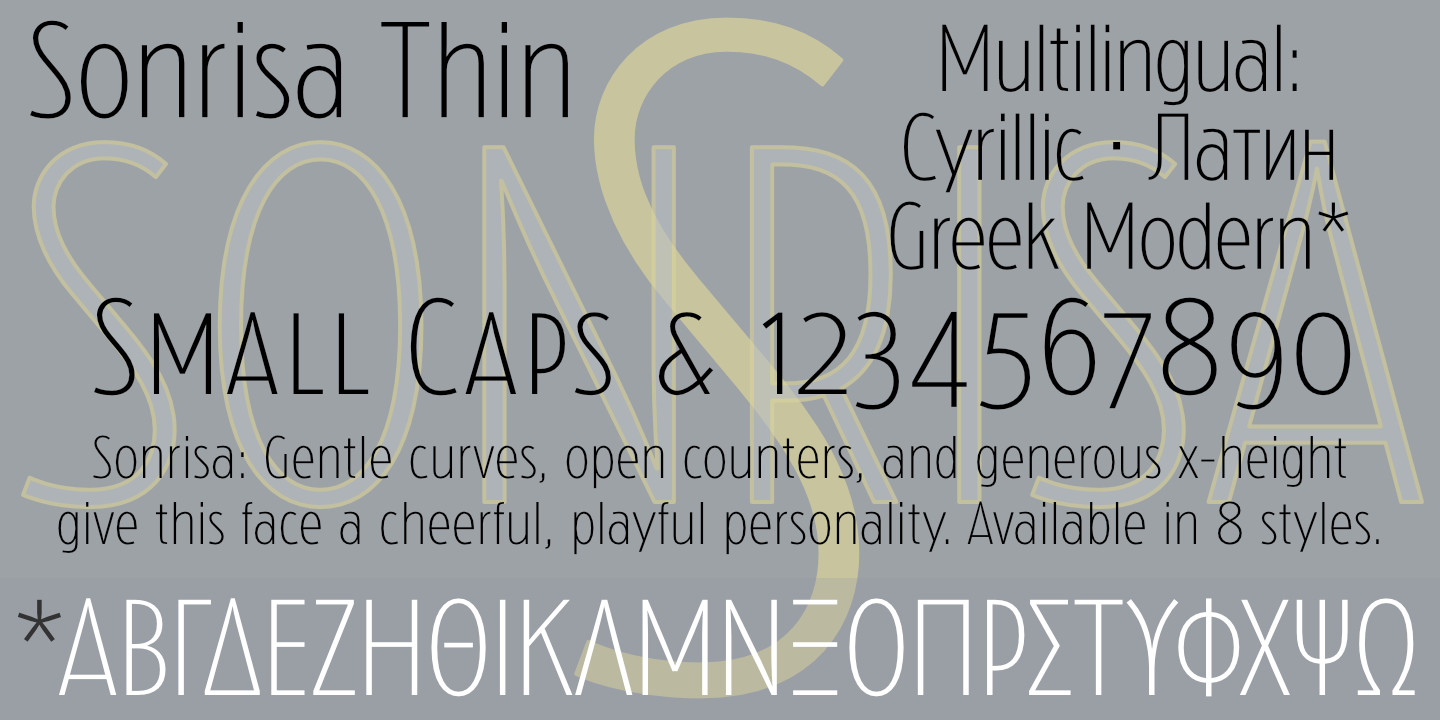
Sonrisa Condensed Pro Thin
Sonrisa™ is an 8-font CastleType Original that evolved from my sketches of the skeletal structure of Jakob Erbar’s Koloss. Gentle curves, open counters, and generous x-height give this face a cheerful, playful personality. Supports most languages that use the Latin, Greek (modern), or Cyrillic alphabets; true small caps and oldstyle numerals.
The Sonrisa family is available in eight styles:
Thin, Light, Regular, Medium, Bold, Extra Bold, Black, Titling.